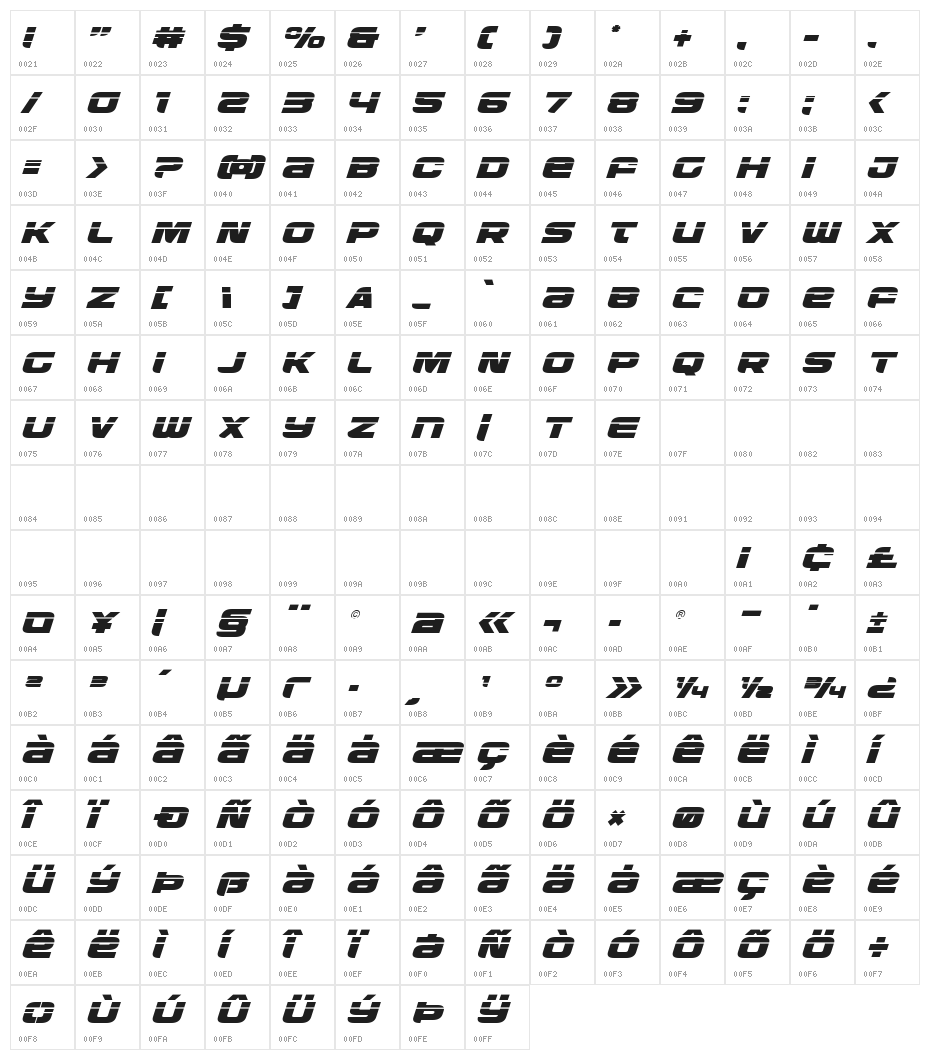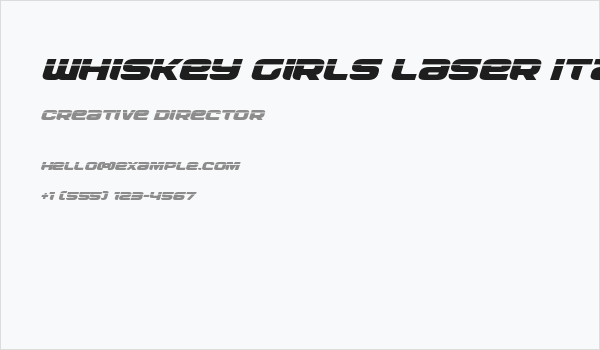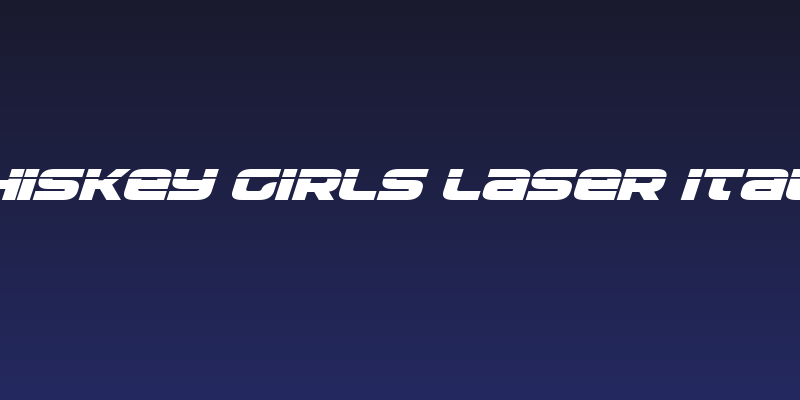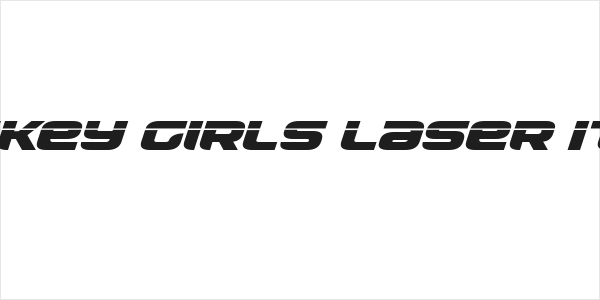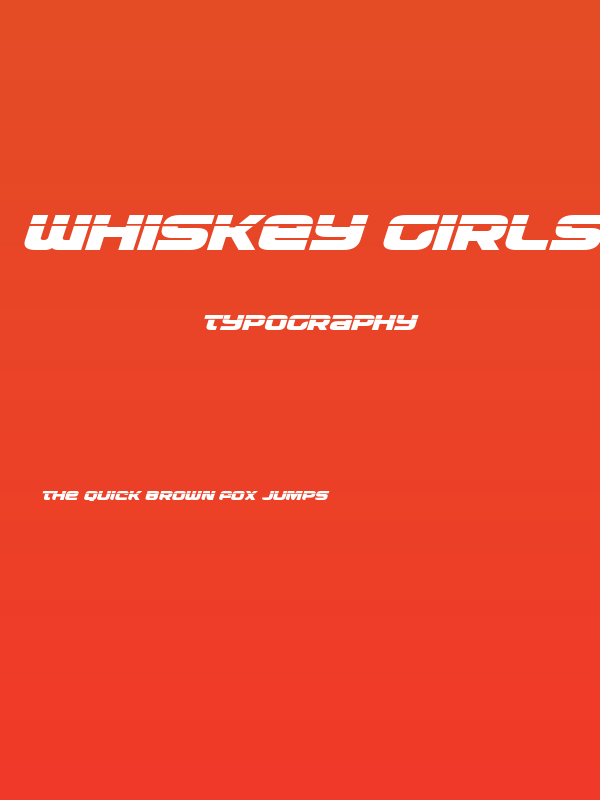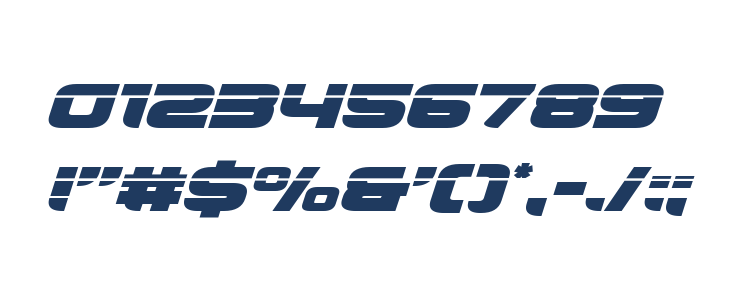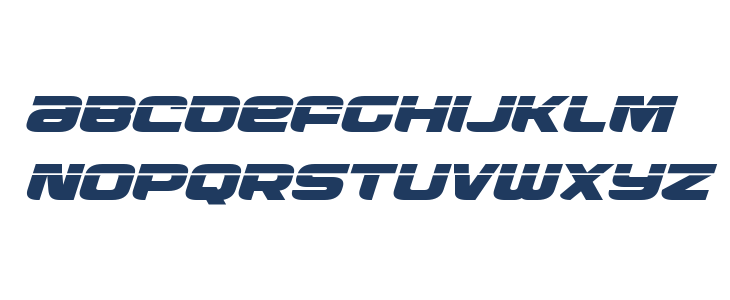
Whiskey Girls Laser Italic Font
Whiskey Girls Laser Italic Description
This font features a bold, italicized style with a modern and dynamic appearance. The characters are designed with a forward slant, giving a sense of motion and speed. The strokes are thick and consistent, providing a strong visual impact. The uppercase and lowercase letters maintain a uniform width, contributing to a cohesive look. The numbers and special characters are crafted to match the overall aesthetic, ensuring versatility across different uses. The font's design is suitable for projects that require a bold and energetic feel.
| Proposed Projects | Ideal for sports branding, automotive designs, dynamic posters, and modern advertising. |